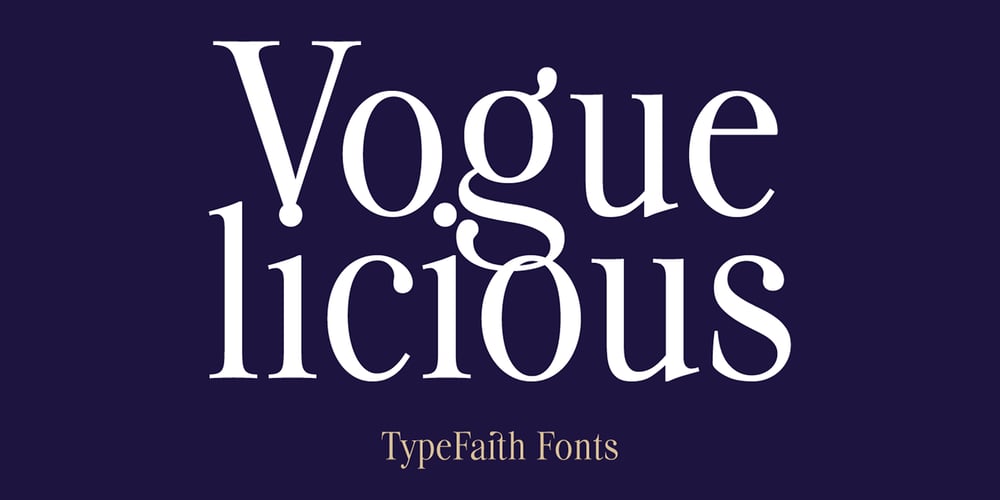
Voguelicious Font Family was designed by Léon Hulst and published by TypeFaith Fonts. Voguelicious contains 6 styles and family package options. Voguelicious is a classic and elegant serif font family. The family consists of six serif styles with a chic vintage look and real italics. Voguelicious is compact and therefore very suitable for magazines and fashion designs. The font gives the right sense of fashion. Voguelicious is enhanced by OpenType features such as ligatures and stylistic alternates.Voguelicious can be used in branding and logo designs, magazines, packaging, fashion accessories.Designer: Leon HulstFoundry: TypeFaith Fonts is the type desk of WAT designers in Utrecht (Netherlands). We make fonts that are usable for our own design studio and to share with other designers.